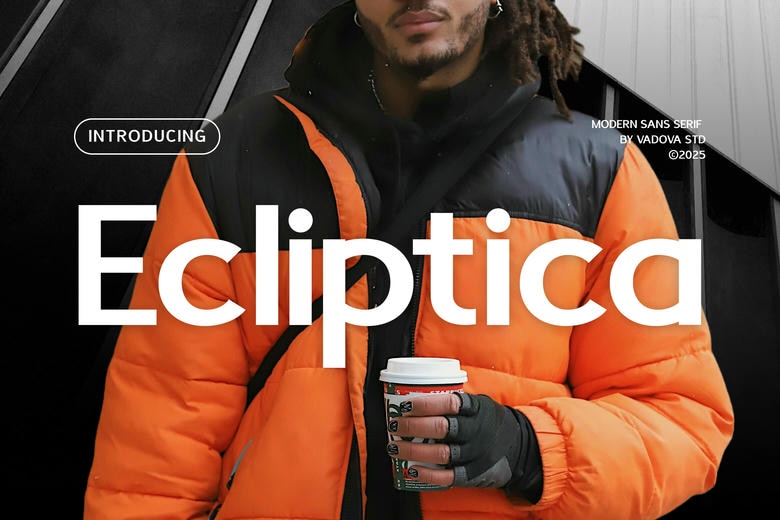
Ecliptica Font
Ecliptica is a modern sans serif typeface that is both fashionable and practical. It is a font that portrays tall x-height, wide proportions, and clean, geometric architecture, which is a powerhouse of branding streetwear and lifestyle editorial work, as well as bold digital interfaces.
The Ecliptica, which is designed by Vadova Studio in the 2025 creative landscape, can be described as a firm yet elegant structure that takes up a commanding presence without losing its business focus.
Ecliptica Sans Serif Font